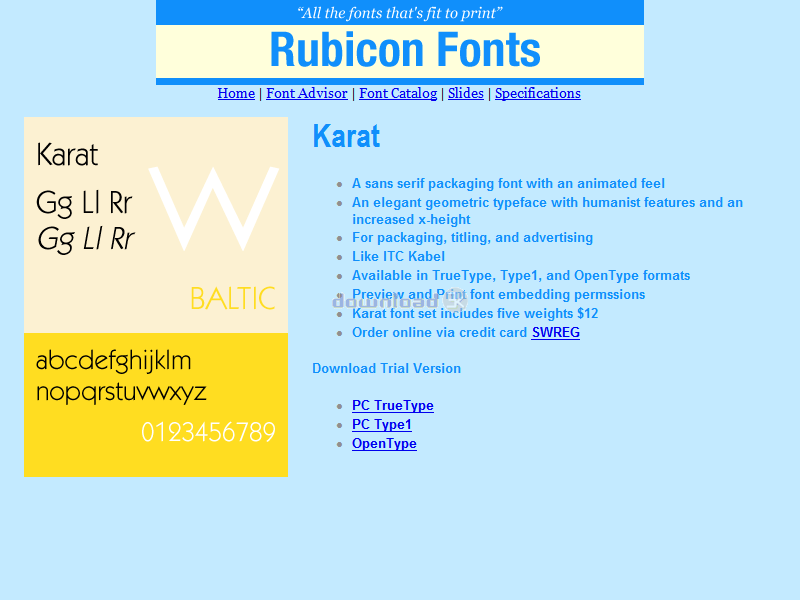
"Sans serif packaging font, animated look"
Sans serif packaging font with an animated feel. Like ITC Kabel. An elegant geometric typeface with humanist features. Its increased x-height makes it great for packaging, titling, and advertising. Accurate and hinted, matching font metrics, standard character set, kerning pairs. Professional print quality for inkjet, laser, typesetter to 3500 dpi. Purchasers receive 5 font variants as follows: Normal, Medium, Demibold, Bold, Extrabold.Requirements: Older versions of Windows require Adobe Type Manager.